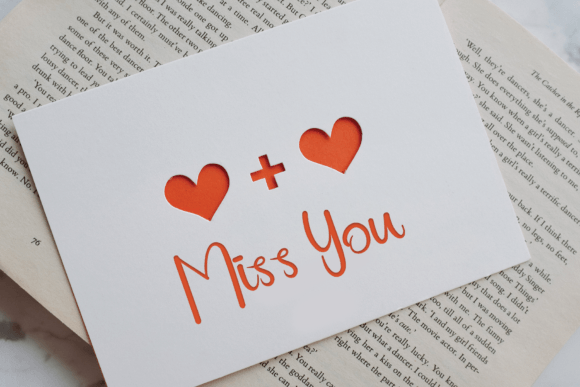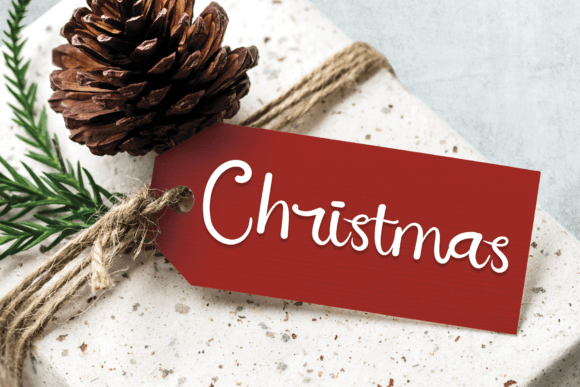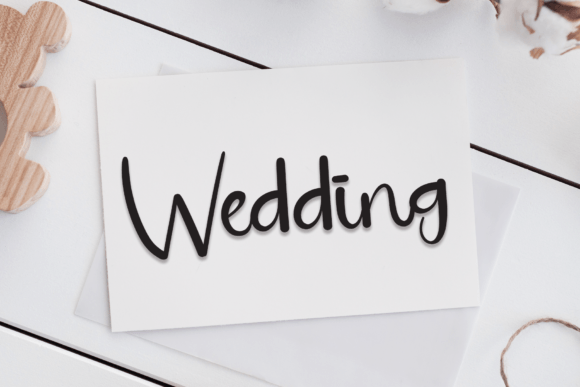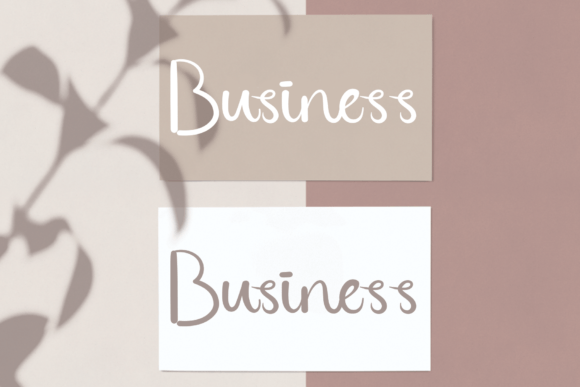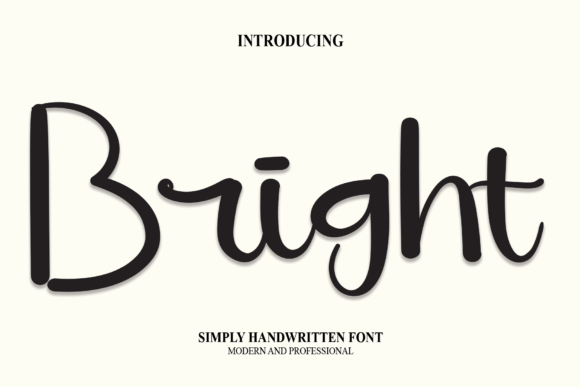
The Bright Font: A Fun and Friendly Companion for Your Creative Projects
I’ll never forget the time I was working on a project for a client who requested a font that was both playful and professional. I scoured the internet, tried out countless fonts, but nothing seemed quite right. That was until I stumbled upon Bright, a fun and friendly handwritten font that instantly captured the tone I was looking for. In this article, I’ll share my experience with Bright, its features, and how you can make the most of it in your creative projects.
An Honest Review of Bright Font
What I Love About Bright Font ✨
- 💖 Friendly and approachable feel: Bright font has a warm and inviting personality that makes it perfect for a wide range of projects, from greeting cards to digital designs.
- ✅ Highly versatile: Whether you’re working on a craft project, creating a presentation, or designing a social media post, Bright font adapts seamlessly to different contexts.
- 🎨 Great for creative freedom: With its extensive range of OpenType features, glyphs, and stylistic alternates, Bright font gives you the creative flexibility to experiment and try new things.
While Bright font is an excellent choice for many projects, there are a few things to keep in mind:
- ⚠️ Limited use in formal contexts: Due to its playful nature, Bright font might not be the best choice for formal documents, such as academic papers or business reports.
- ⚠️ May not work well at very small sizes: As with many handwritten fonts, Bright may lose some of its charm when scaled down to very small sizes.
The Story Behind Bright Font
Bright font was designed with the intention of creating a friendly and approachable typeface that could bring joy to a wide range of creative projects. Its creator aimed to craft a font that felt both modern and nostalgic, perfect for designers, crafters, and hobbyists looking for a versatile and fun font.
Q: What makes Bright font unique?
A: Bright font stands out due to its friendly and approachable feel, making it perfect for a wide range of creative projects.
Q: Is Bright font suitable for body text?
A: While Bright font is beautiful, it’s generally better suited for headings and titles due to its playful nature. For body text, a more traditional font might be more readable.